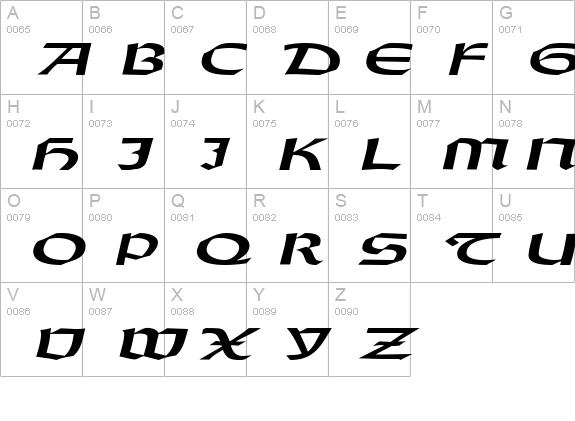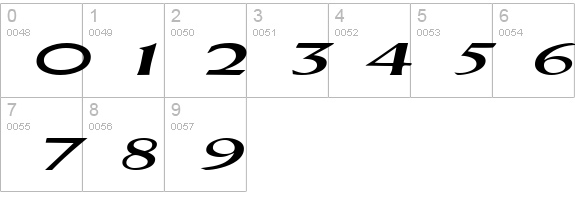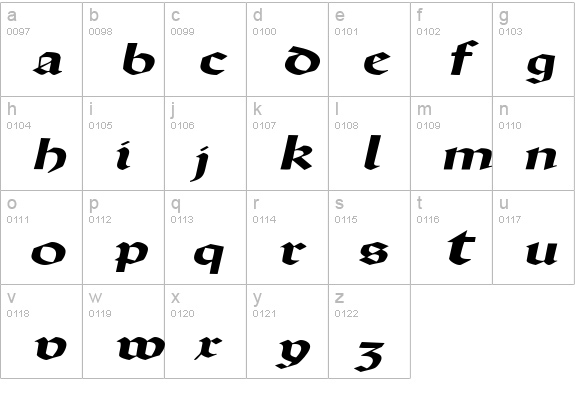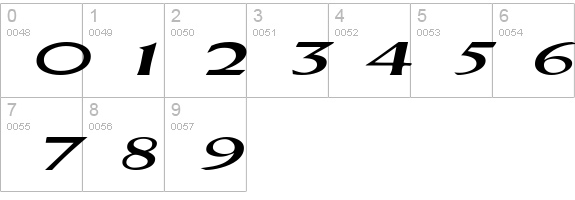
DriscollSSK BoldItalic Font Details
DriscollSSK BoldItalic is a striking and dynamic font that exudes confidence and sophistication. Its bold strokes and elegant italics make it perfect for creating eye-catching designs that command attention. Whether used in titles, headlines, or branding materials, this font adds a touch of modern flair to any project. And the best part? DriscollSSK BoldItalic is available for free download at FontsMarket.com. Embrace the power of this unique font and elevate your designs with its bold and italicized charm. Download it today and unleash your creativity with DriscollSSK BoldItalic.